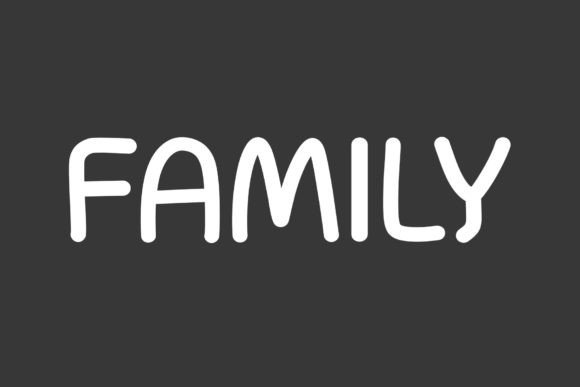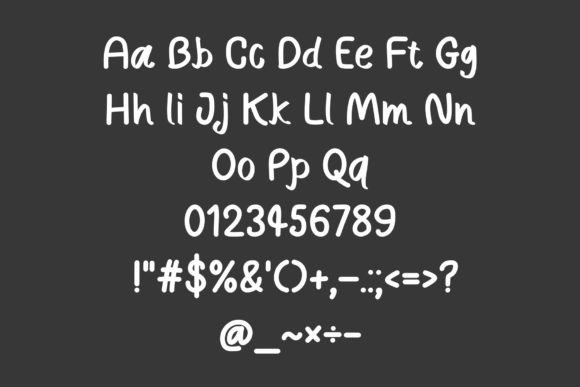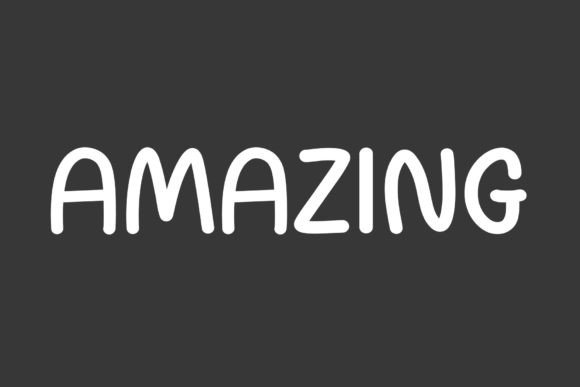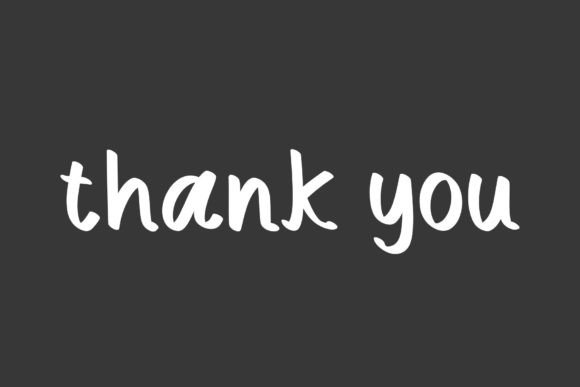
Discover the Charm of Cutiepie Font: A Delightful Addition to Your Design Projects
Are you tired of using the same old fonts in your design projects? Look no further than the adorable Cutiepie font! With its cute and quirky letterforms, Cutiepie is perfect for creating eye-catching and delightful projects that are sure to captivate hearts. In this article, we’ll explore the versatility and charm of Cutiepie font, and how it can elevate your designs to the next level.
The Perfect Font for Whimsical Projects
Cutiepie font is a playful and charming font that is ideal for creating whimsical projects. Its unique letterforms are designed to evoke a sense of fun and playfulness, making it perfect for children’s books, nursery decor, and other projects that require a touch of sweetness. Whether you’re a designer, crafter, or simply a DIY enthusiast, Cutiepie font is a must-have tool in your creative arsenal.
One of the best things about Cutiepie font is its versatility. It can be used in a variety of design styles, from modern and bold to vintage and distressed. This means that you can use Cutiepie font to create a wide range of projects, including:
- Children’s books and nursery decor: Add a touch of sweetness to your children’s books and nursery decor with Cutiepie font.
- Greeting cards and invitations: Create fun and playful greeting cards and invitations that are sure to delight.
- Social media graphics: Use Cutiepie font to create eye-catching social media graphics that will make your followers smile.
- Logos and branding materials: Create adorable logos and branding materials that will help your business stand out.
Why Designers and Crafters Love Cutiepie Font
Designers and crafters alike love Cutiepie font for its unique and playful letterforms. Here are just a few reasons why:
- Easy to read: Despite its playful design, Cutiepie font is easy to read, making it perfect for body text and headlines.
- Highly versatile: Cutiepie font can be used in a variety of design styles, from modern and bold to vintage and distressed.
- Adorable: Let’s face it – Cutiepie font is just plain cute! It’s the perfect addition to any design project that requires a touch of whimsy.
Tips for Using Cutiepie Font in Your Designs
Here are a few tips for using Cutiepie font in your designs:
- Pair it with bold colors: Cutiepie font looks amazing paired with bold, bright colors. Try pairing it with pink, blue, or yellow for a fun and playful look.
- Experiment with textures: Cutiepie font looks great with textures, such as glitter, polka dots, or stripes. Try experimenting with different textures to add depth and interest to your designs.
- Use it for headlines: Cutiepie font is perfect for headlines and titles. Try using it to add a touch of whimsy to your blog posts, social media graphics, and more.
In conclusion, Cutiepie font is a delightful addition to any design project. Its cute and quirky letterforms make it perfect for creating eye-catching and delightful projects that are sure to captivate hearts. Whether you’re a designer, crafter, or simply a DIY enthusiast, Cutiepie font is a must-have tool in your creative arsenal. So why wait? Download Cutiepie font today and let your creativity run wild!
With its versatility, charm, and playfulness, Cutiepie font is sure to become a favorite in your design toolkit. So go ahead, get creative, and show the world what you can do with Cutiepie font!